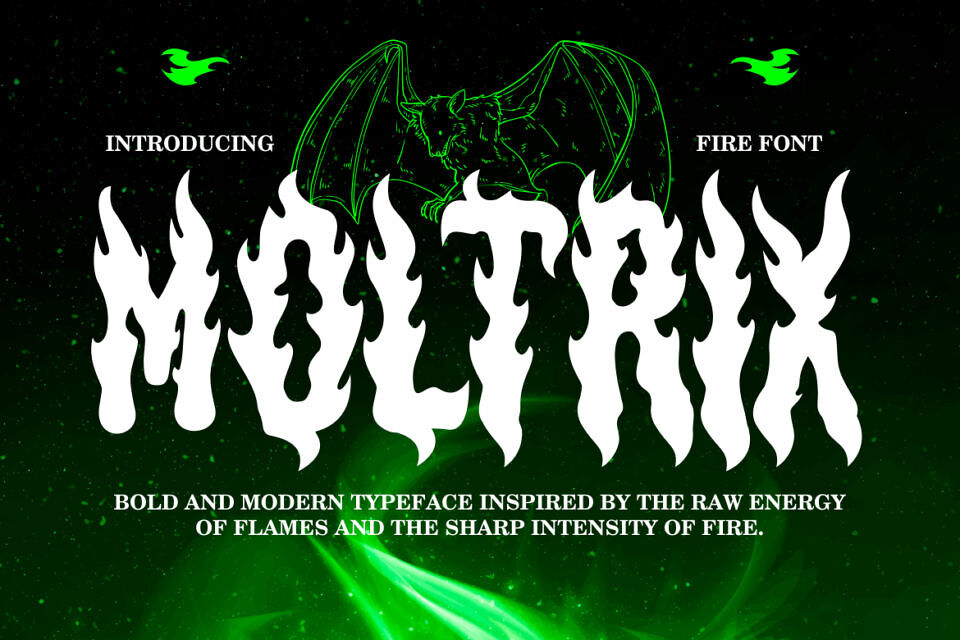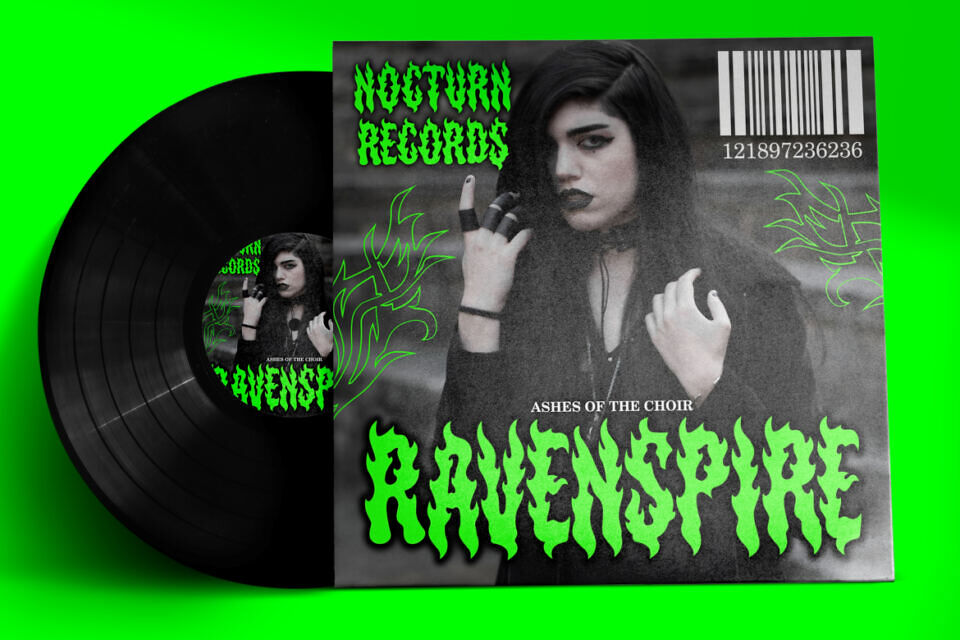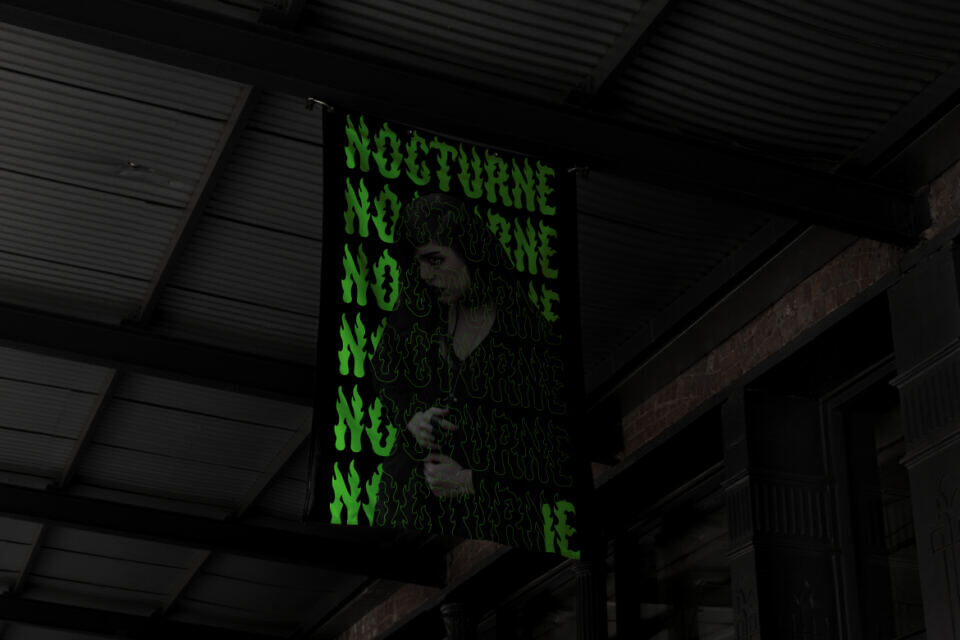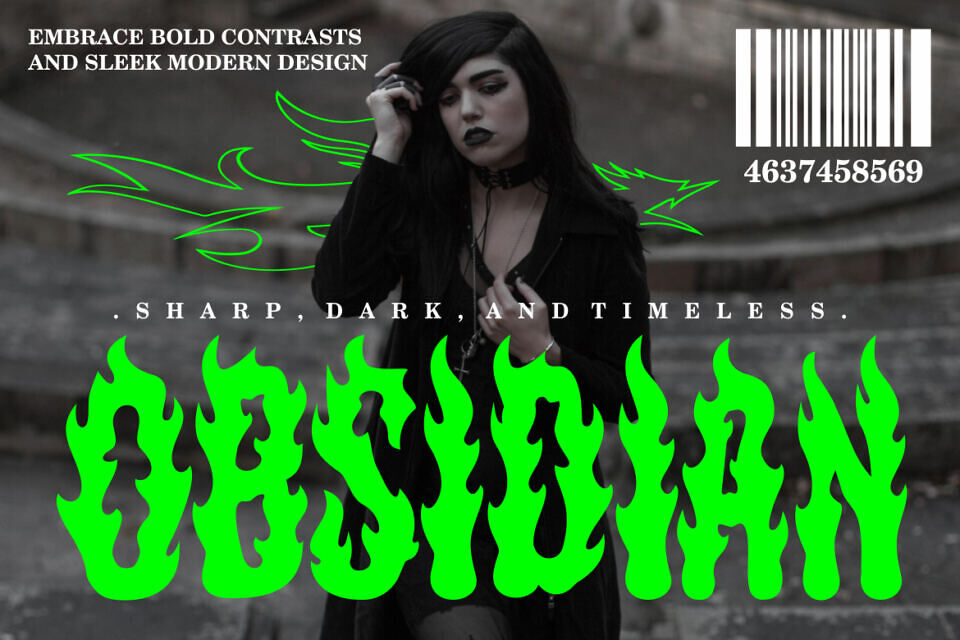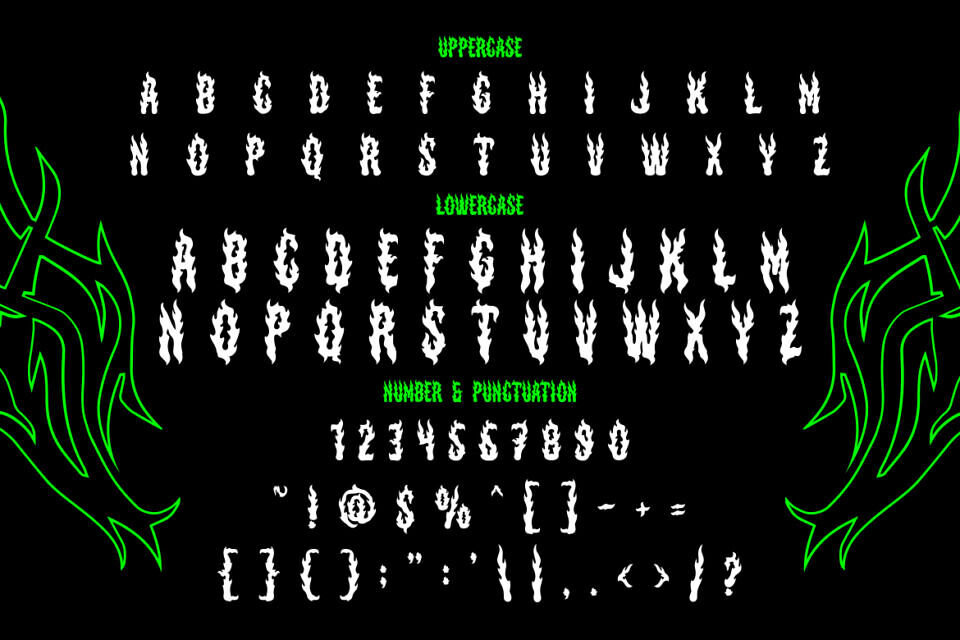
Moltrix Font
Moltrix Fire is a bold display typeface that captures the raw essence of fire and flames. Each letter is crafted with sharp, fiery edges that create an intense visual impact. The strokes mimic blazing tongues of fire, giving the font a dynamic and untamed energy.
Its white-hot forms stand out powerfully against dark or neon backdrops, while the jagged curves add drama and strength. The overall style is modern yet edgy, making it perfect for daring and fearless design projects.